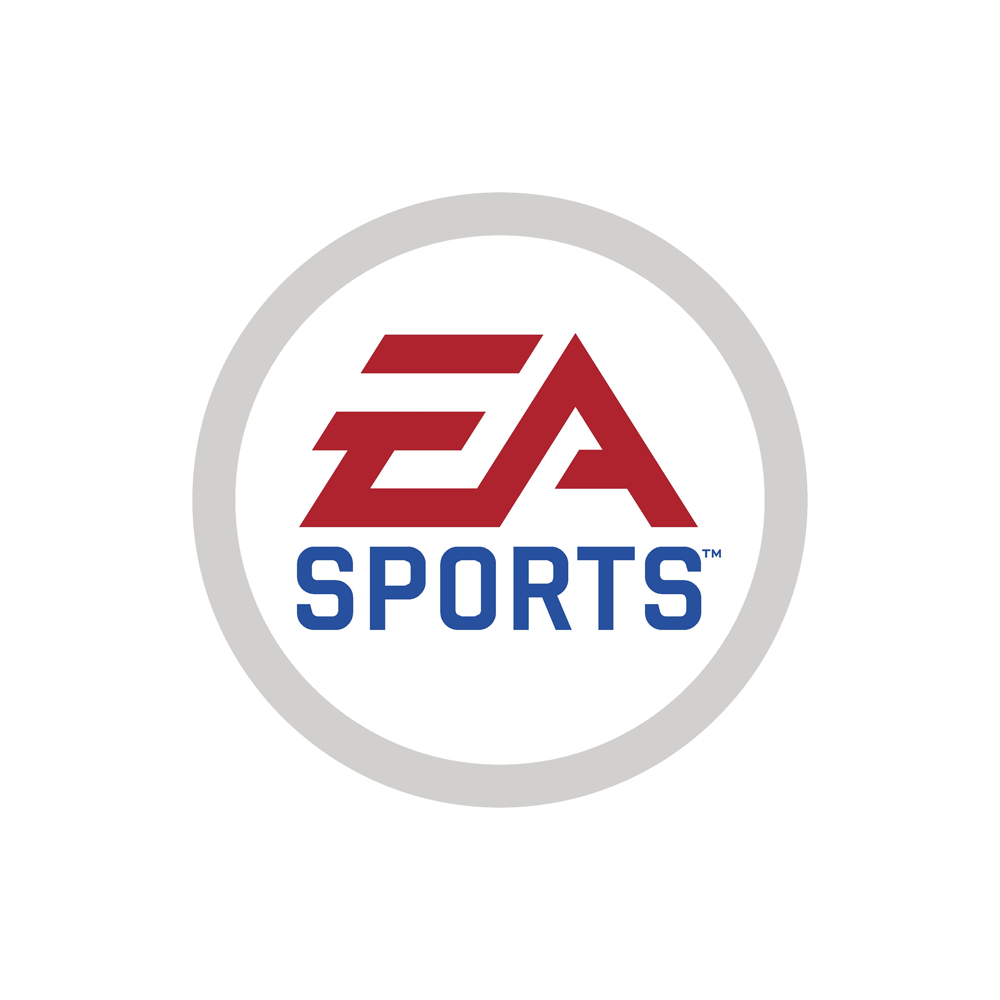
EA Sports Font
The EA Sports logo is a circular emblem, featuring a red "EA" monogram at the top, and the word "sports" in blue, written in a custom square sans font called EA Sans Bold below it. The monogram ''EA'' is in EA Logo Font by 538Lyons on Fontstruct. Both fonts are available for free download in the Fonts Used Section.